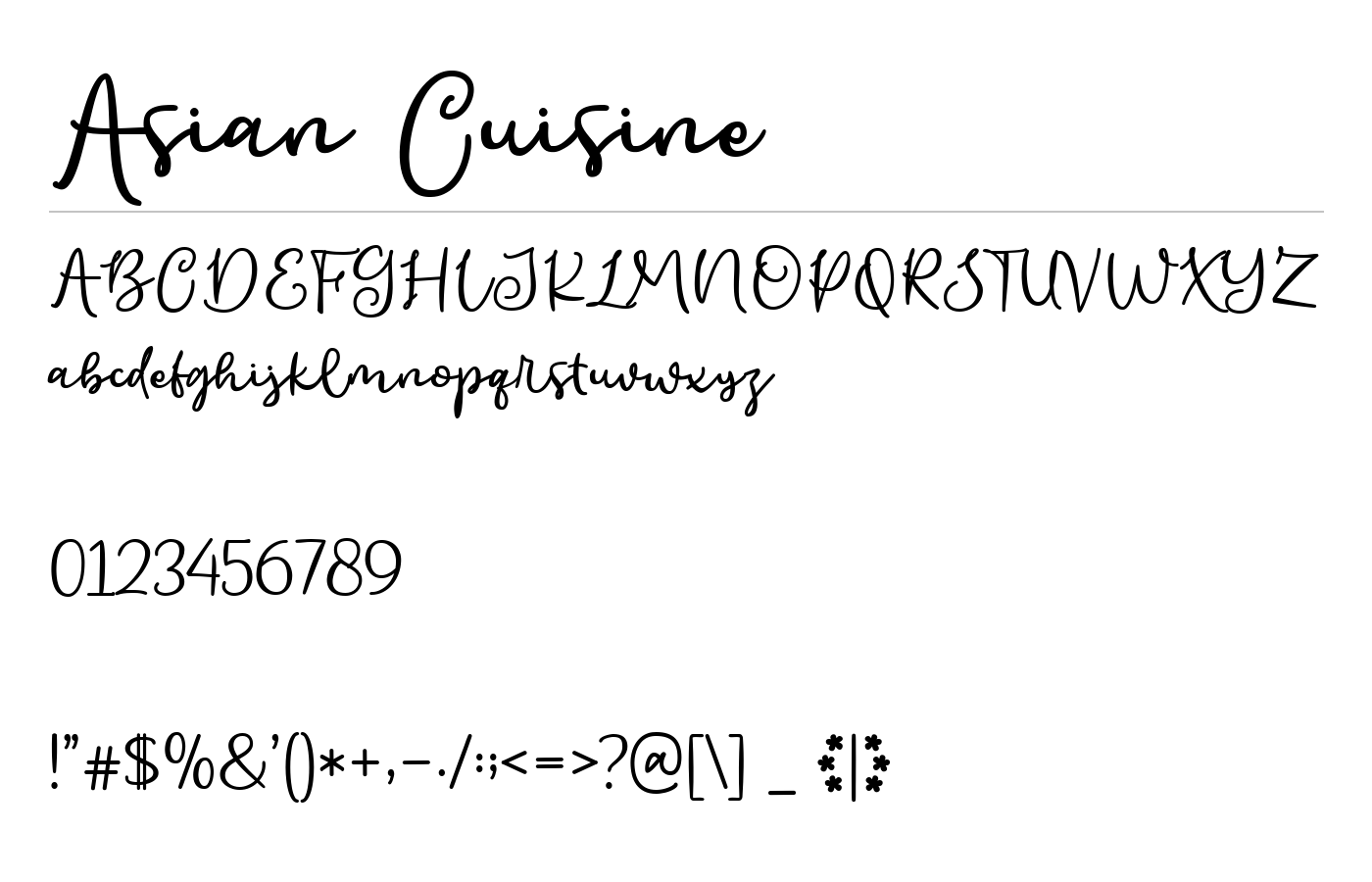
Asian Cuisine Font is a charming and casual script with a handwritten feel, featuring smooth, flowing strokes and moderate contrast that give it a friendly yet elegant personality. Its slightly irregular letterforms and playful character shapes make it ideal for creative projects like branding, menus, and packaging that want to evoke warmth and approachability. This font works best in headlines and logos where its unique style can shine without compromising readability.
Asian Cuisine Font
About Asian Cuisine Font
| Font family | Asian Cuisine Font |
| Designer | AFS Olivetype |